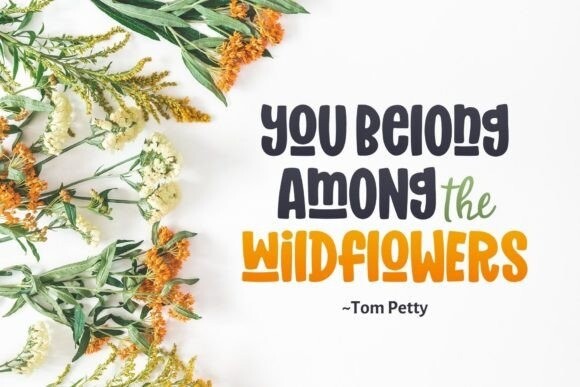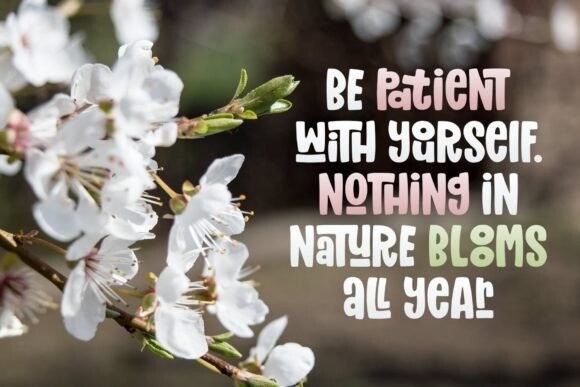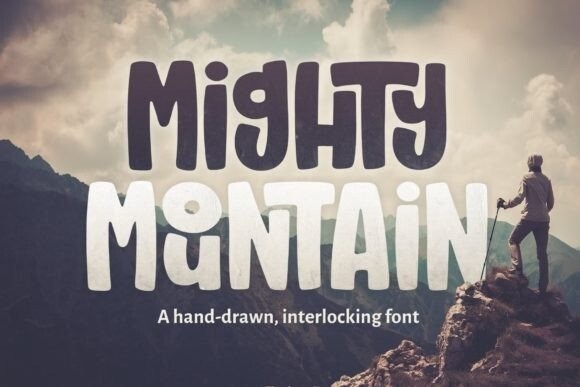
Mighty Mountain Font
Mighty Mountain Font is a hand-drawn display font that comes with a bunch of interlocking and stacked characters. This font is PUA encoded, which means you can access all of the glyphs and swashes with ease!